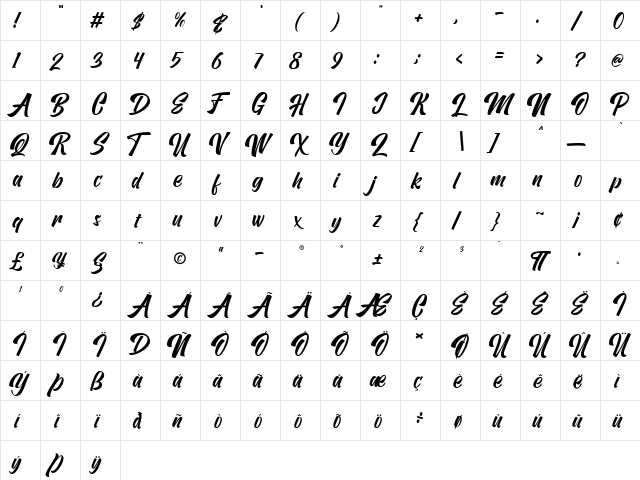
Vervelle Script
| Style | Script |
| Foundry | Astageni Type |
| Designer | Nur Solikh |
Design Context for Vervelle Typeface
Vervelle brings a calligraphic fluidity to the page — its connecting strokes and expressive curves give it an unmistakably human quality.